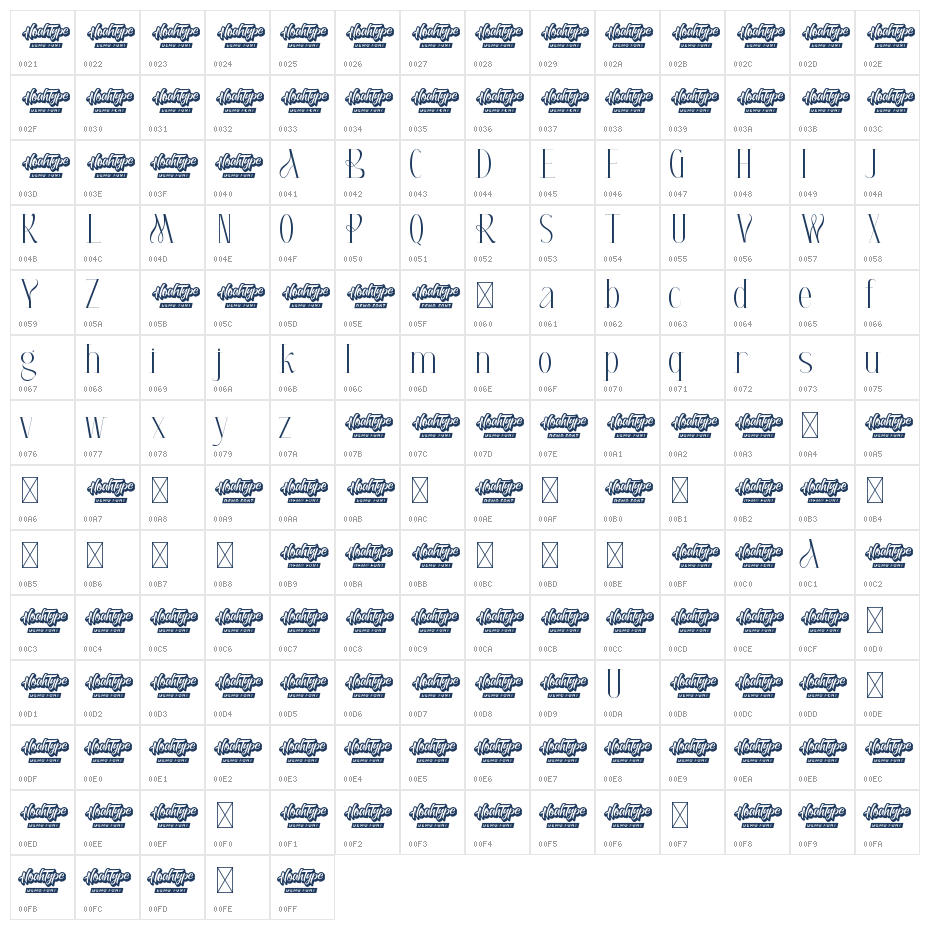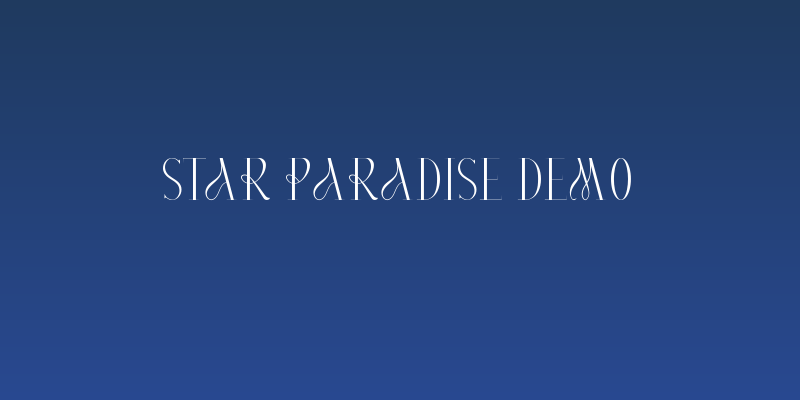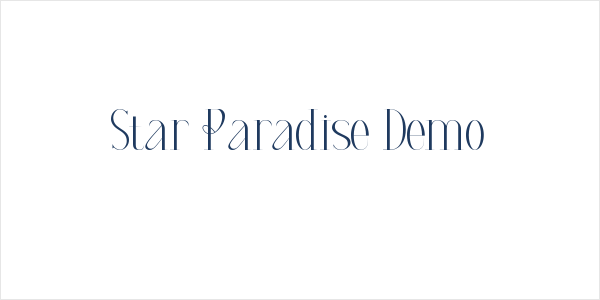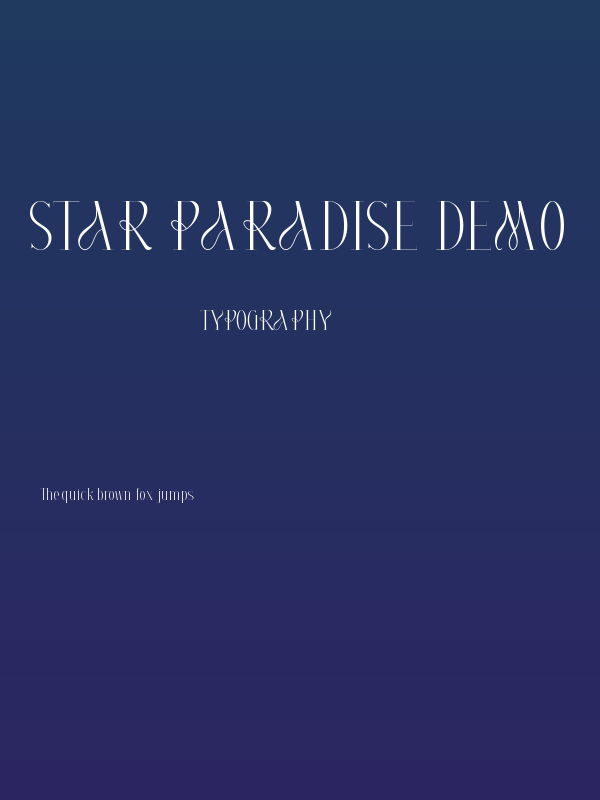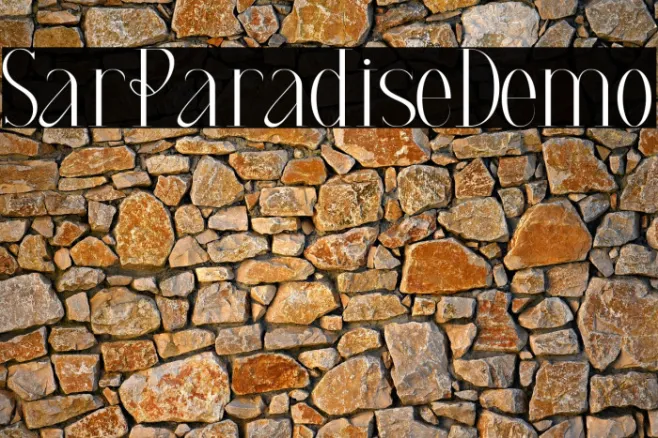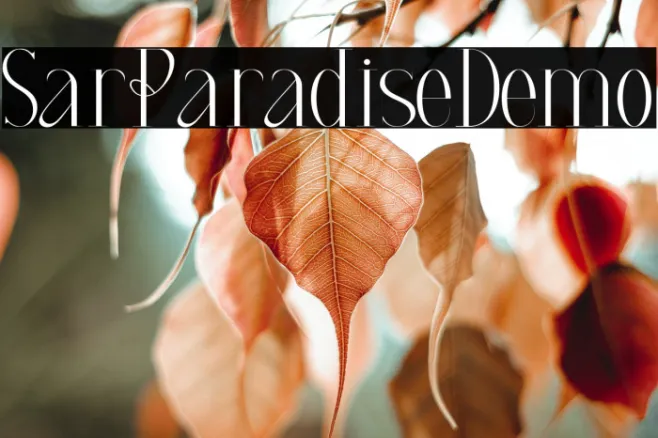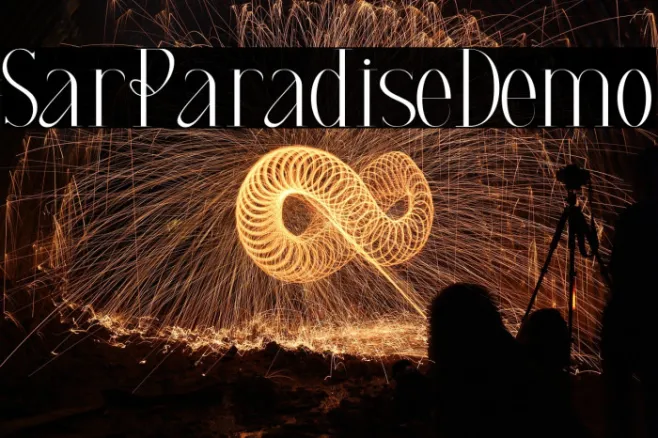
Star Paradise Demo Font
Star Paradise Demo Description
Elegant, thin, serif font with high contrast and delicate strokes, featuring a sophisticated and decorative style.
| Use Case | Headlines, Logos, Invitations, Branding |